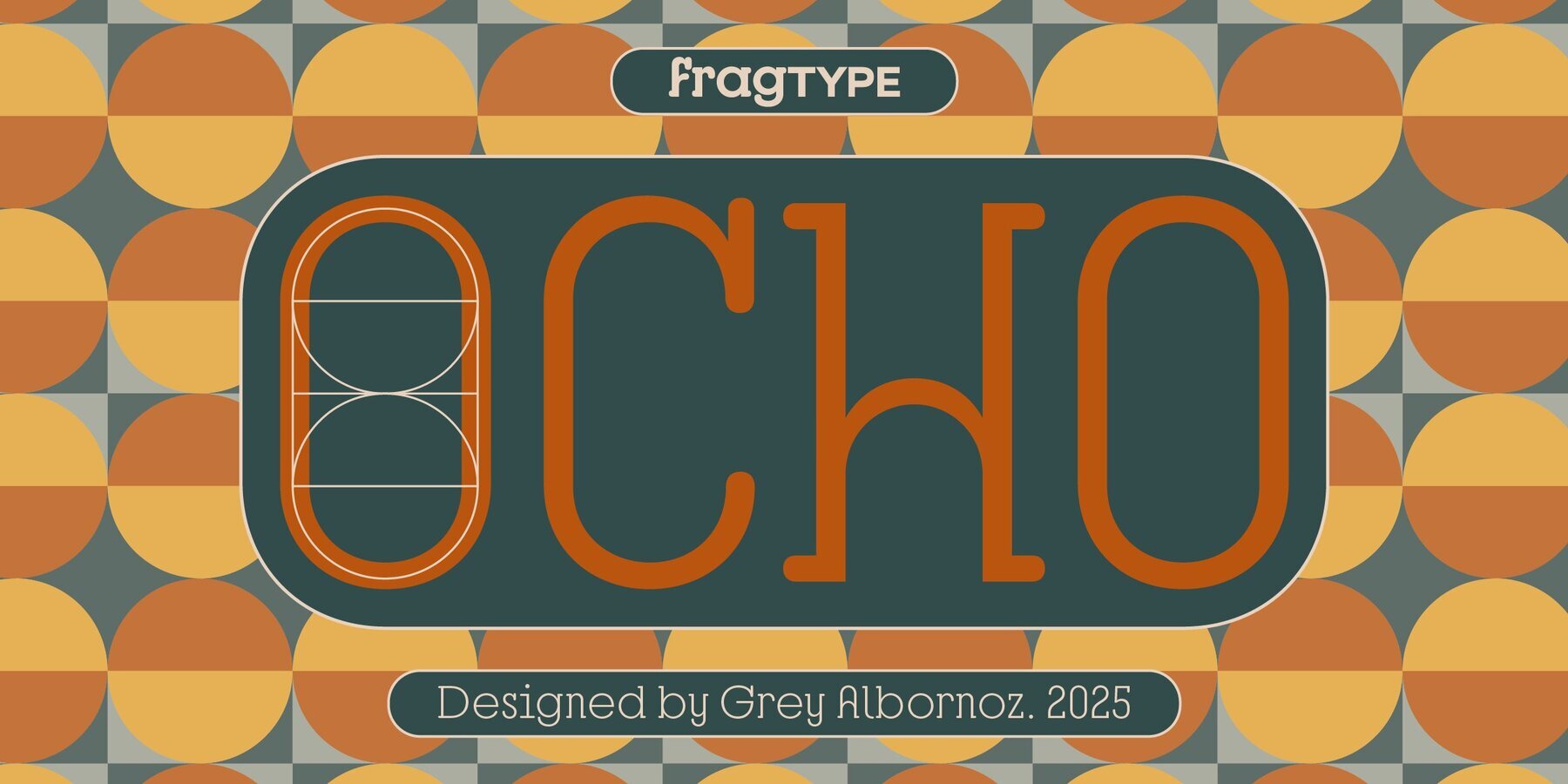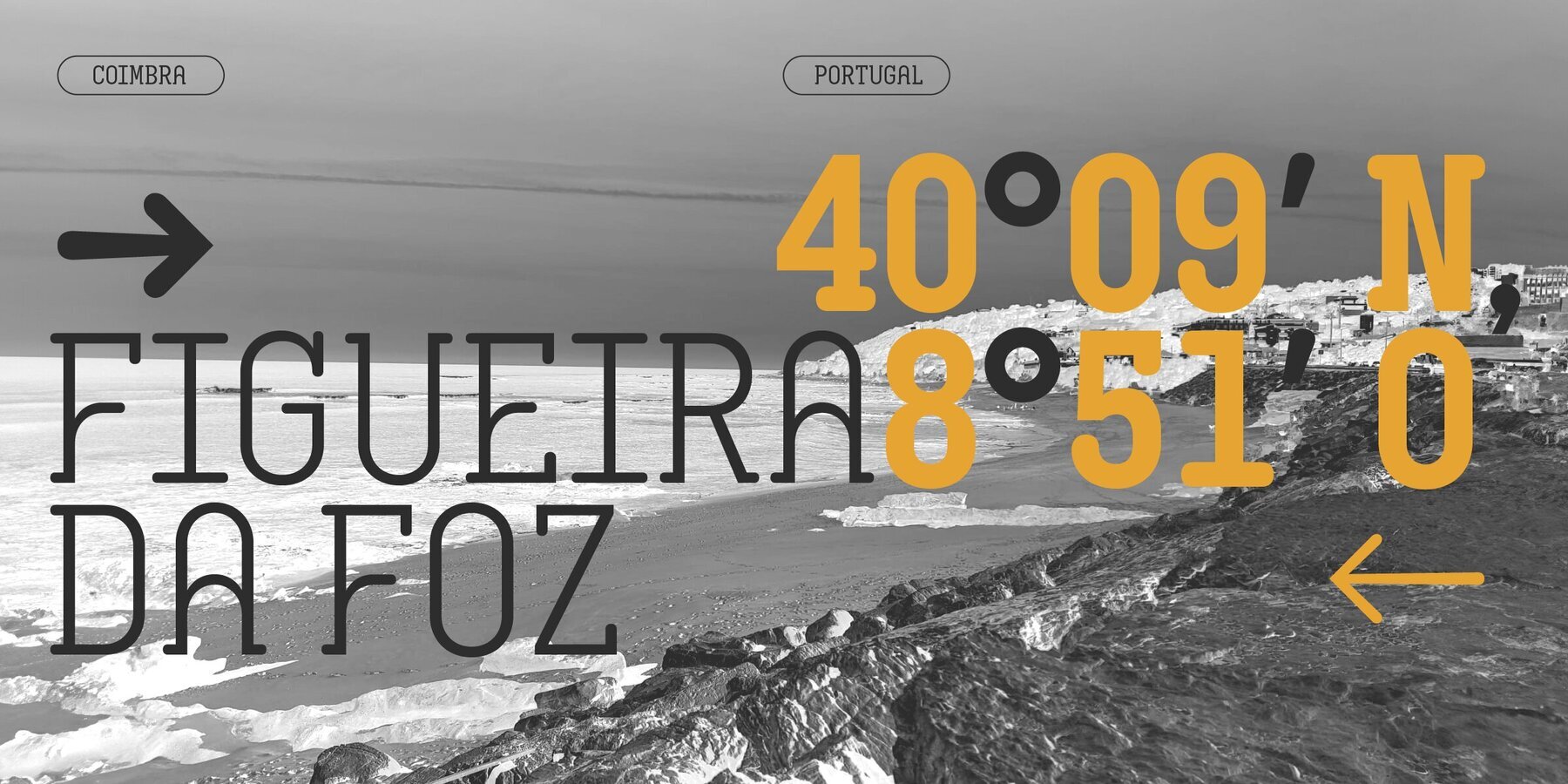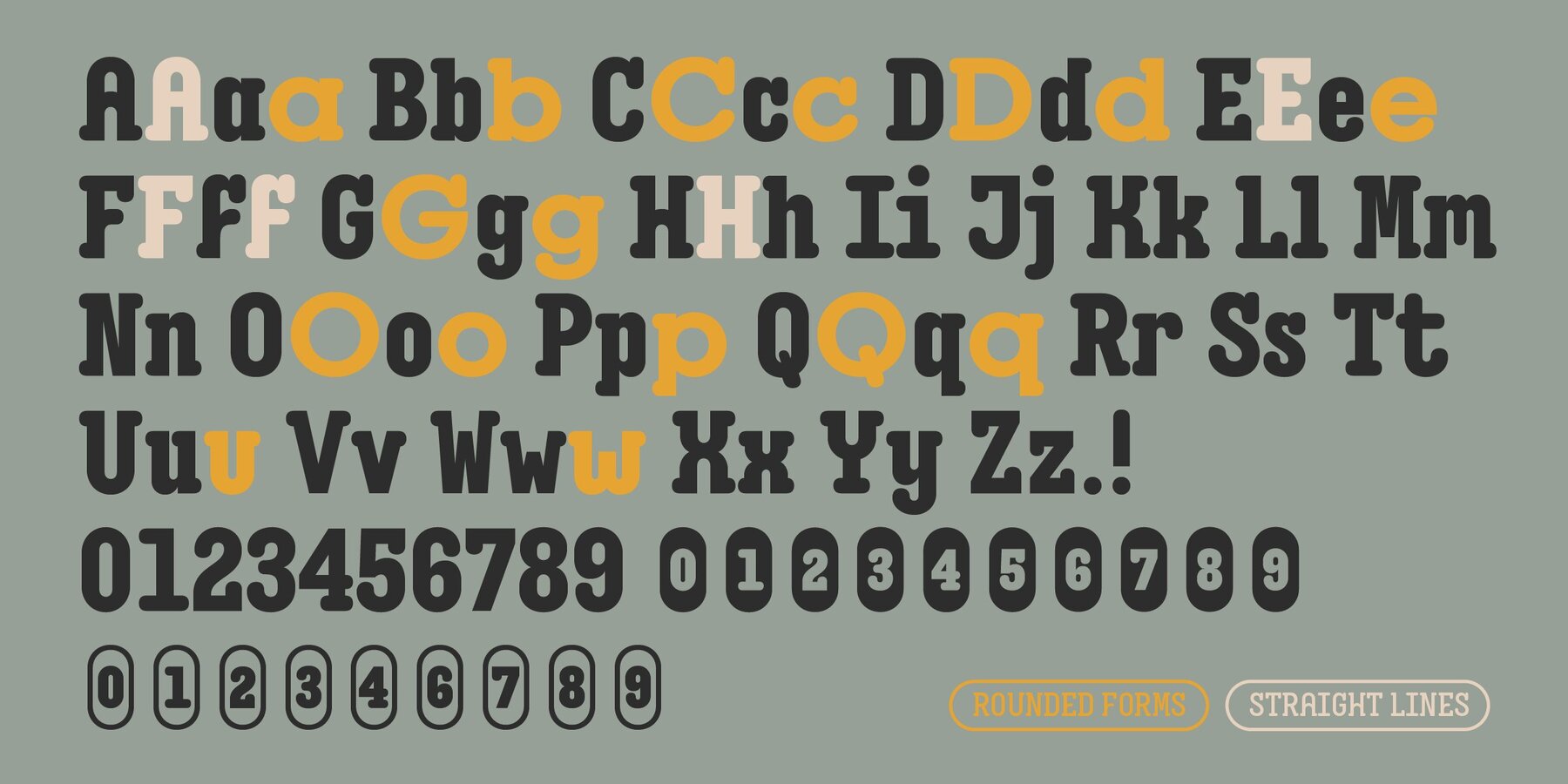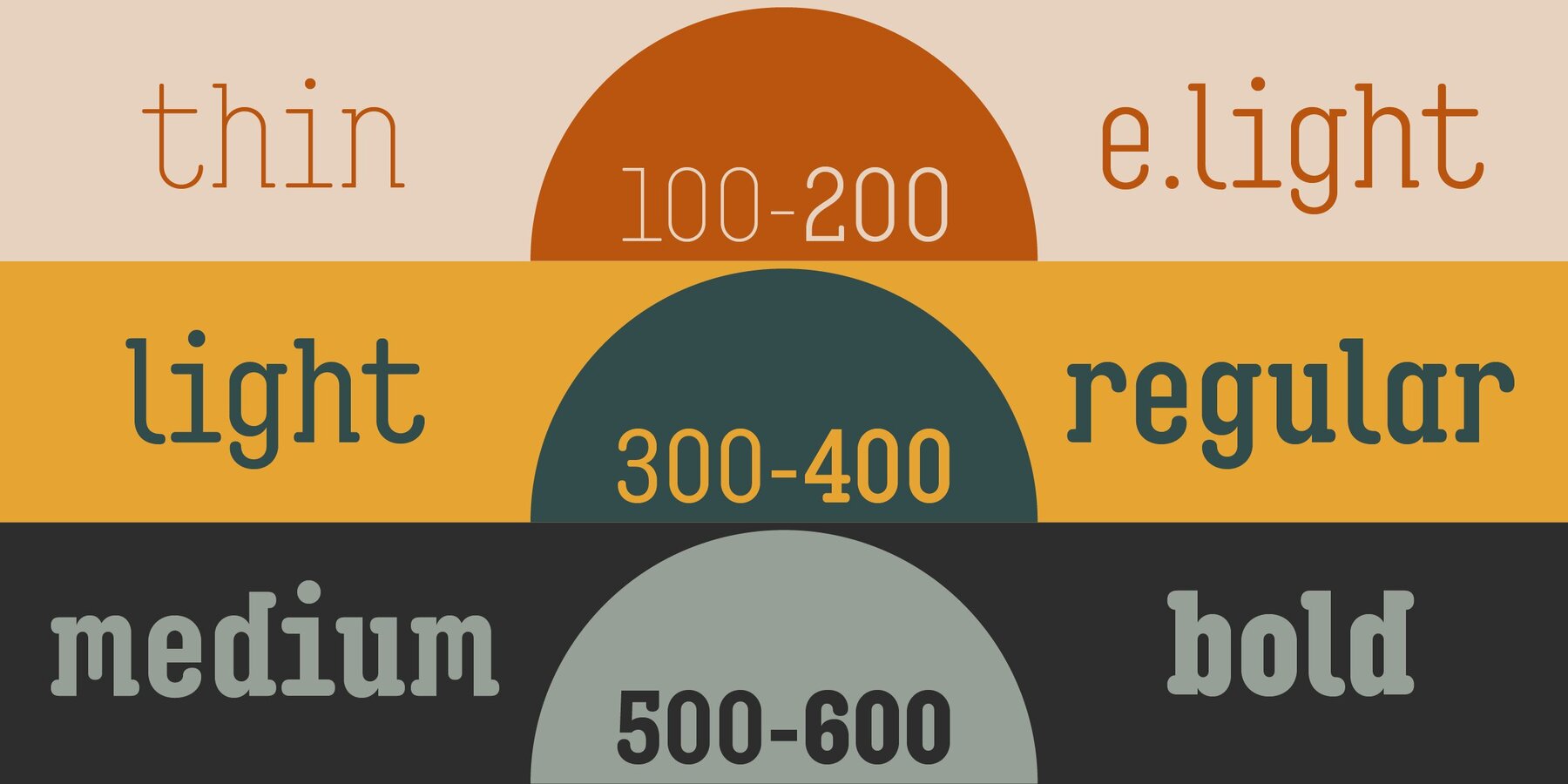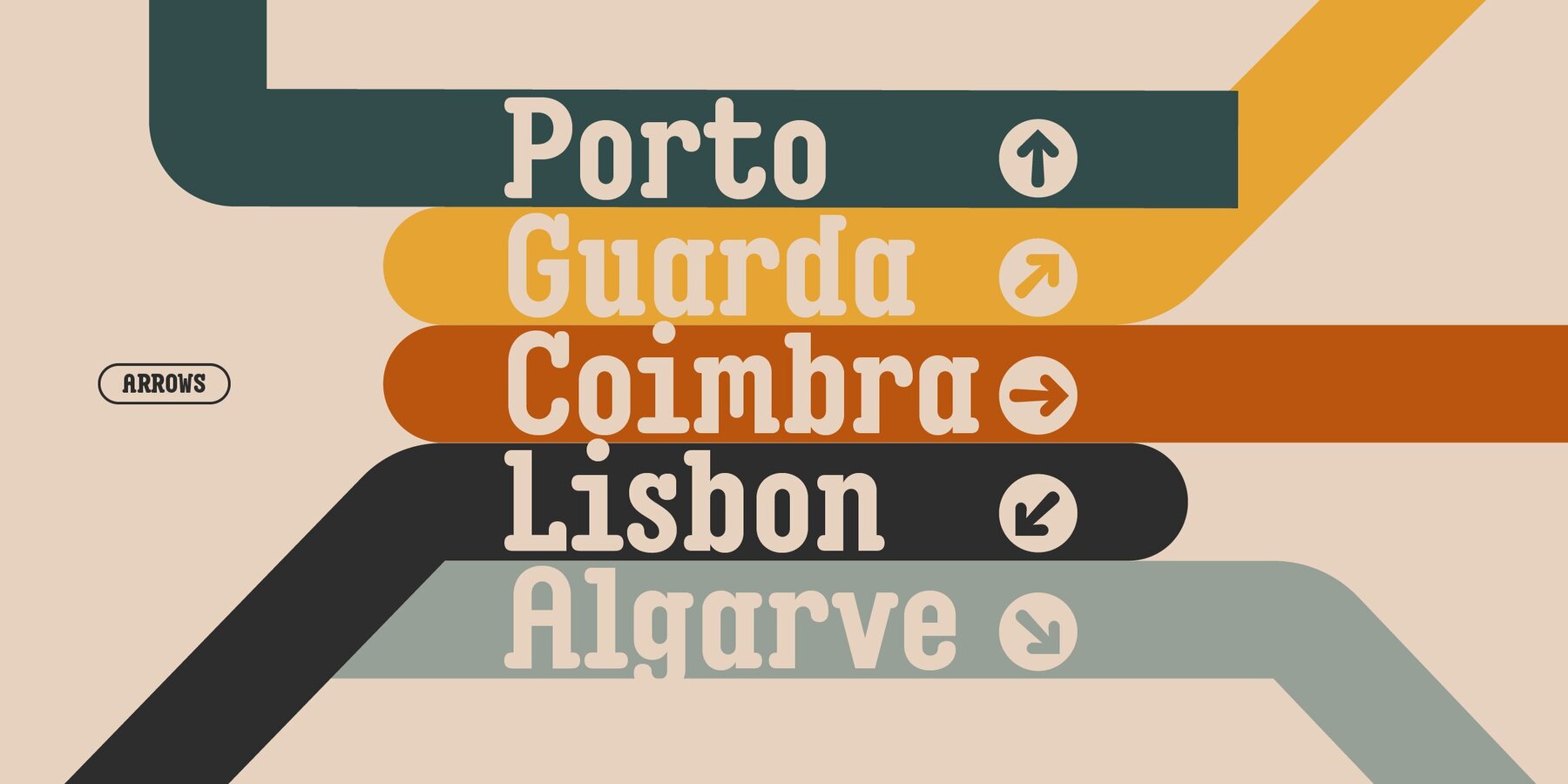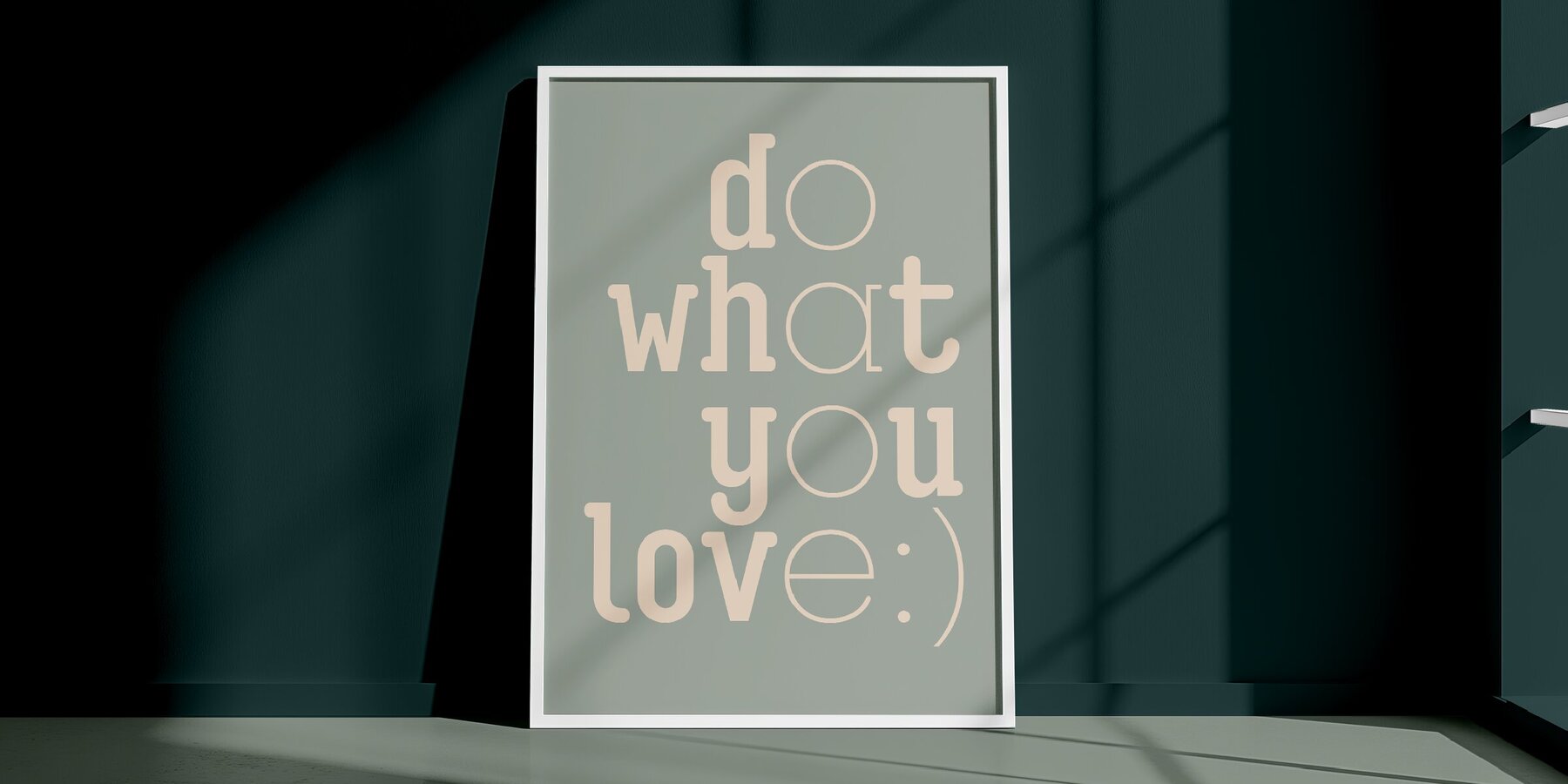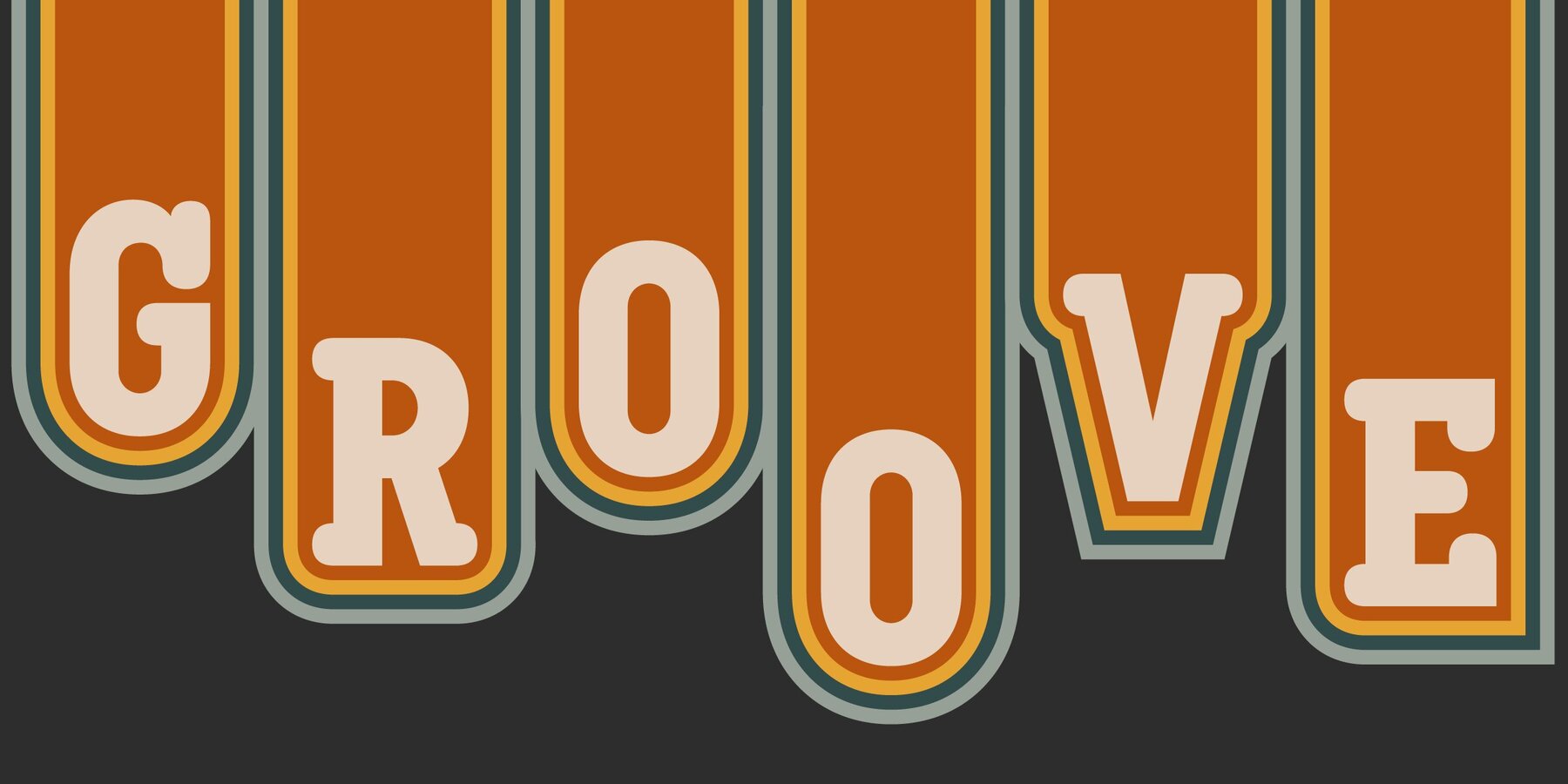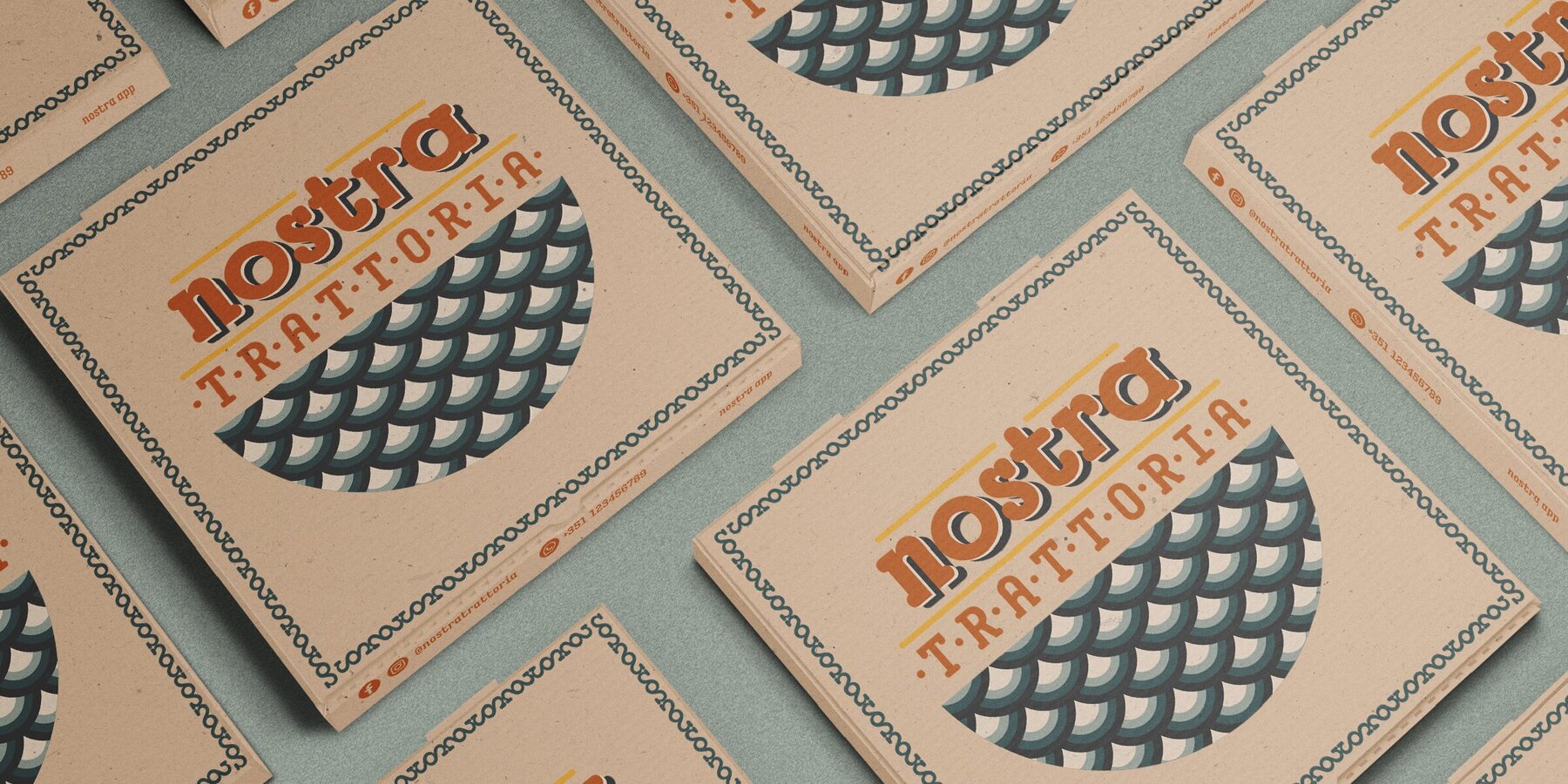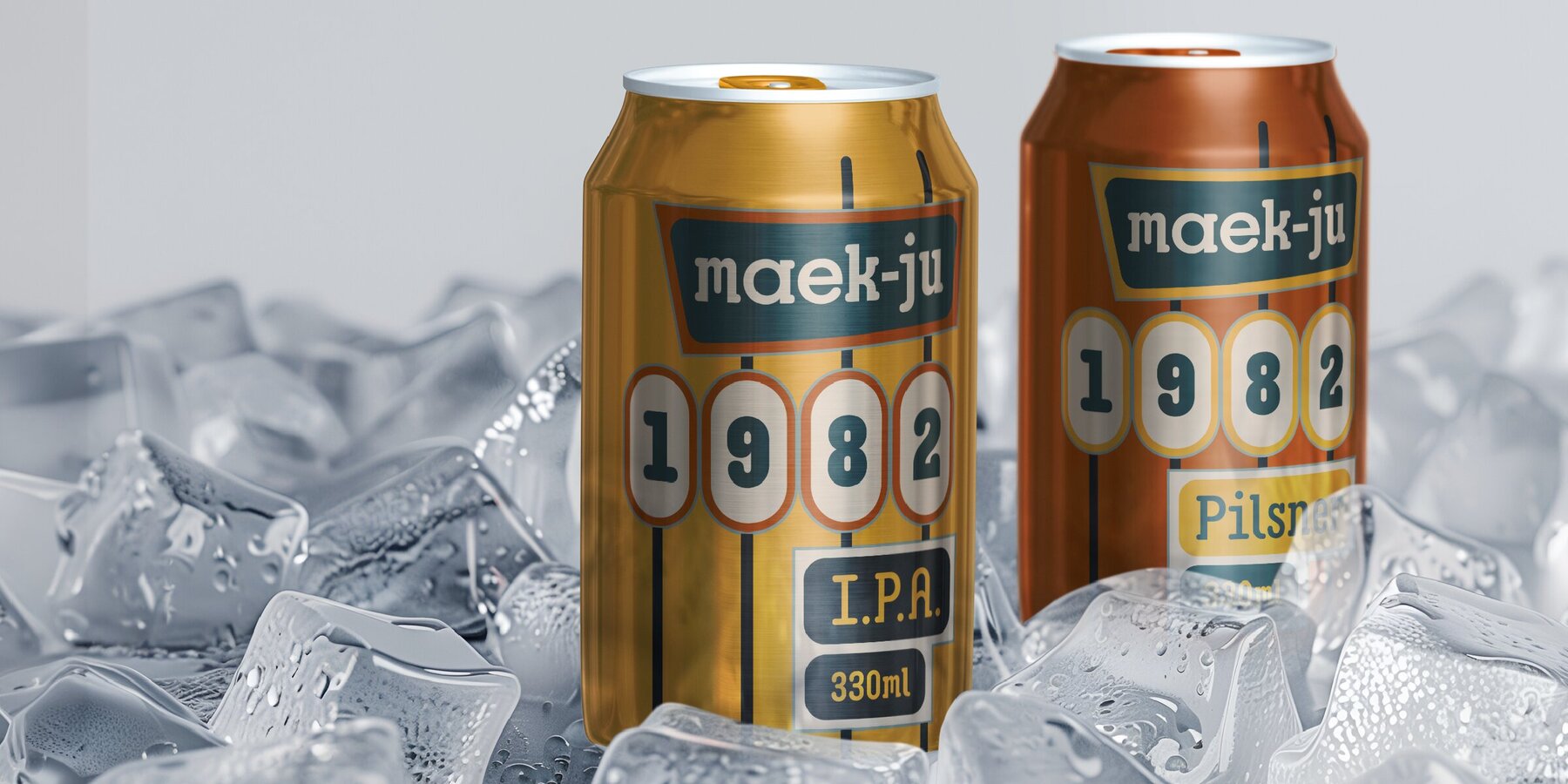
Ocho Font
Ocho is a captivating font family inspired by the beaches of Portugal, created with a blend of playful and structured elements. Its design is rooted in the cohesive geometry of circles and squares, reflecting the iconic architecture and intricate tiling found in Portuguese culture. This balance of round and hard features, along with a semi-serif structure, produces a dynamic rhythm that draws attention.
The font includes circular alternates strategically placed within its condensed proportions, injecting vibrancy into its otherwise rigid framework. Ocho stands out by defying conventional font categories while maintaining broad appeal, making it an excellent choice for designers seeking a distinctive, yet versatile typeface.